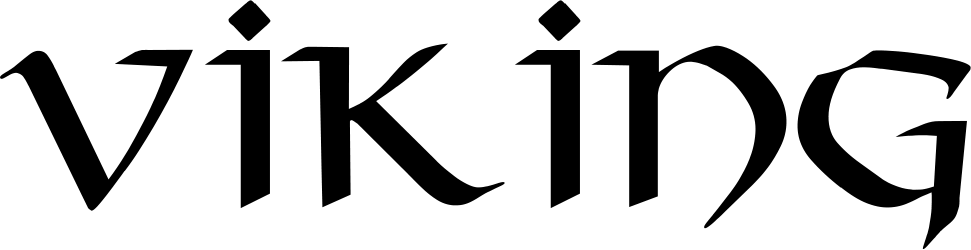
Viking Font
If you want a font that reminds you of medieval and war times, then Viking is a very good choice. By utilizing this particular Celtic font your typography will have an interesting, established, and historical feel, especially with the sharp and pointy serif edges making it very unique.
The letterforms available for Viking are capitalized alphabets, numbers, and punctuations, lowercase letters are not included. It’s not difficult to read and can be used for, movies, books, posters, titles, and more.